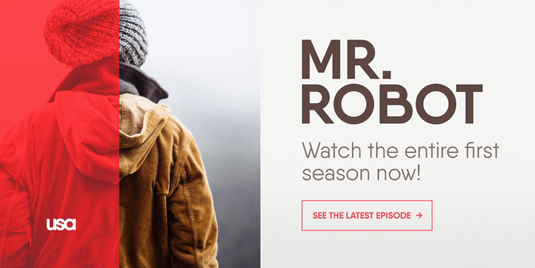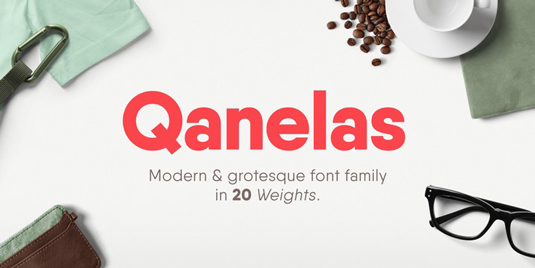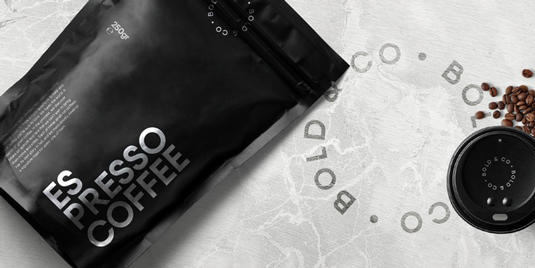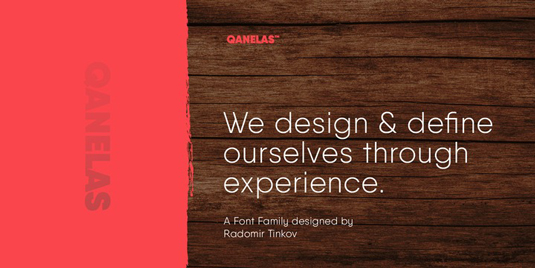
Font of the day: Qanelas
Qanelas by Radomir Tinkov
Qanelas is a modern sans serif with a geometric touch. Created by type designer Radomir Tinkov, Qanelas is available in 20 weights, with 10 uprights and matching italics.